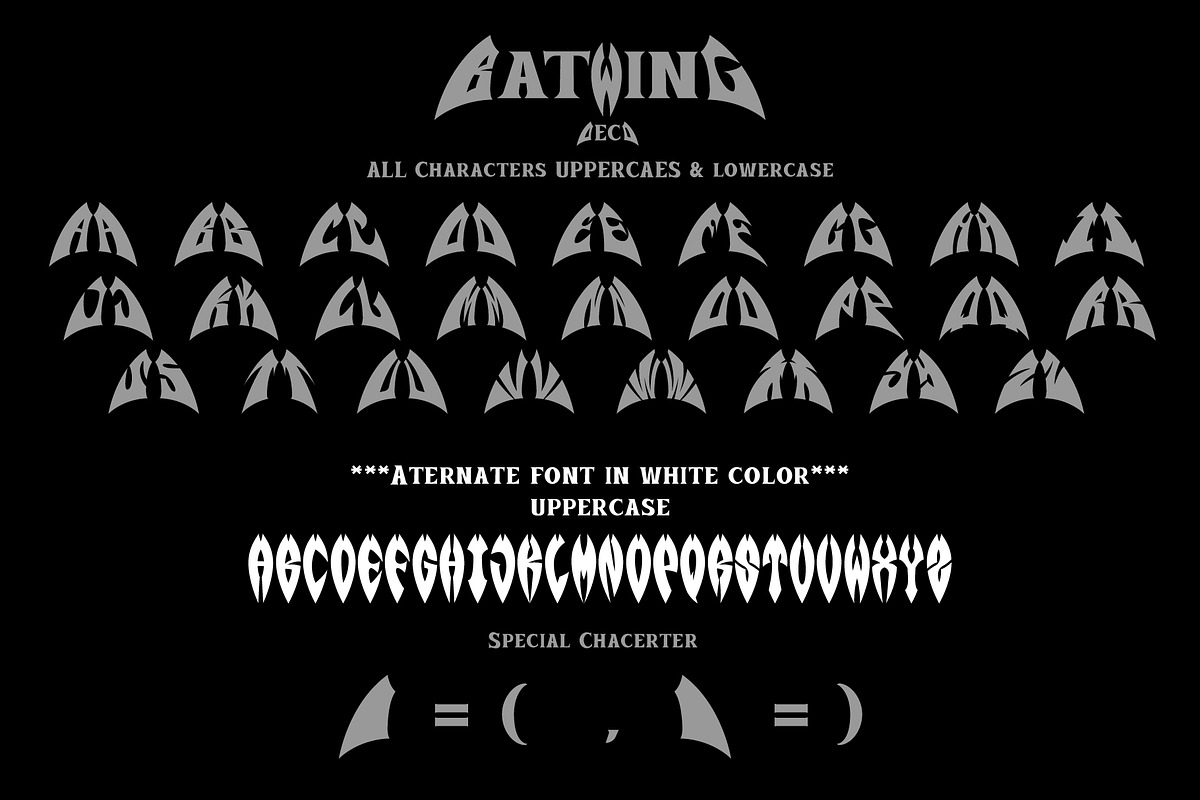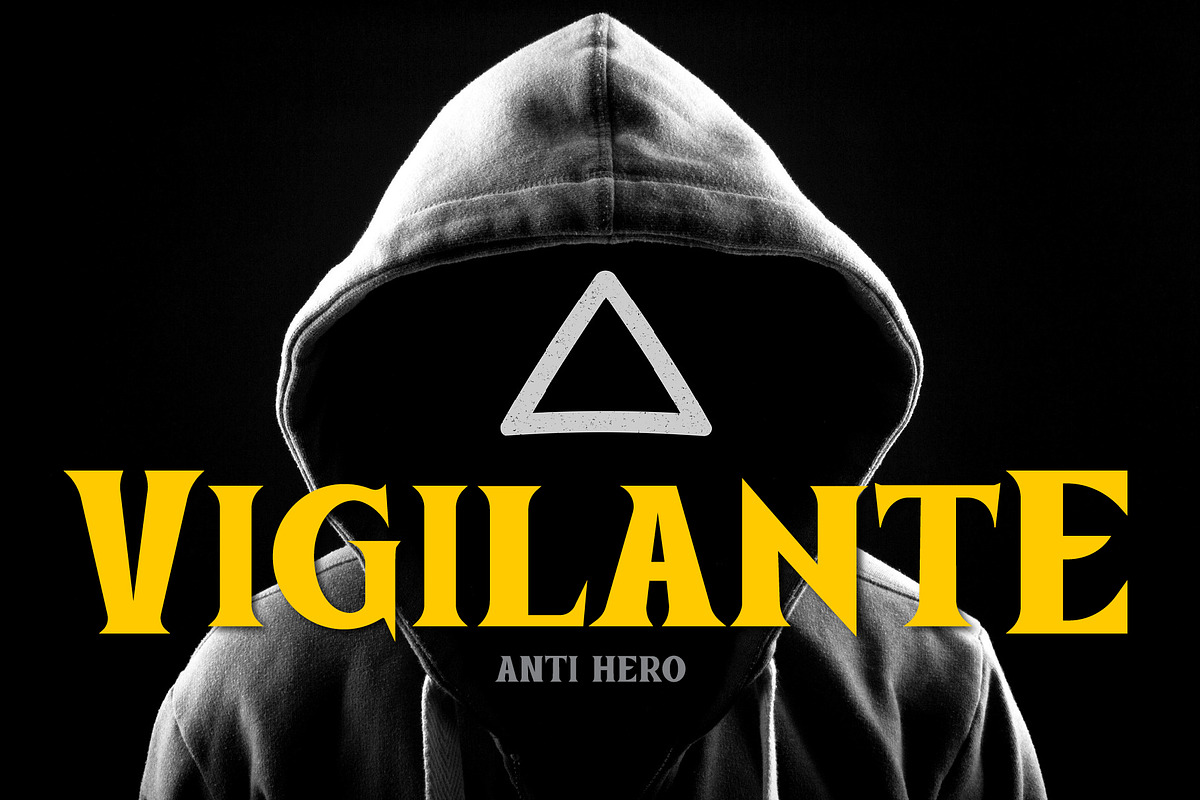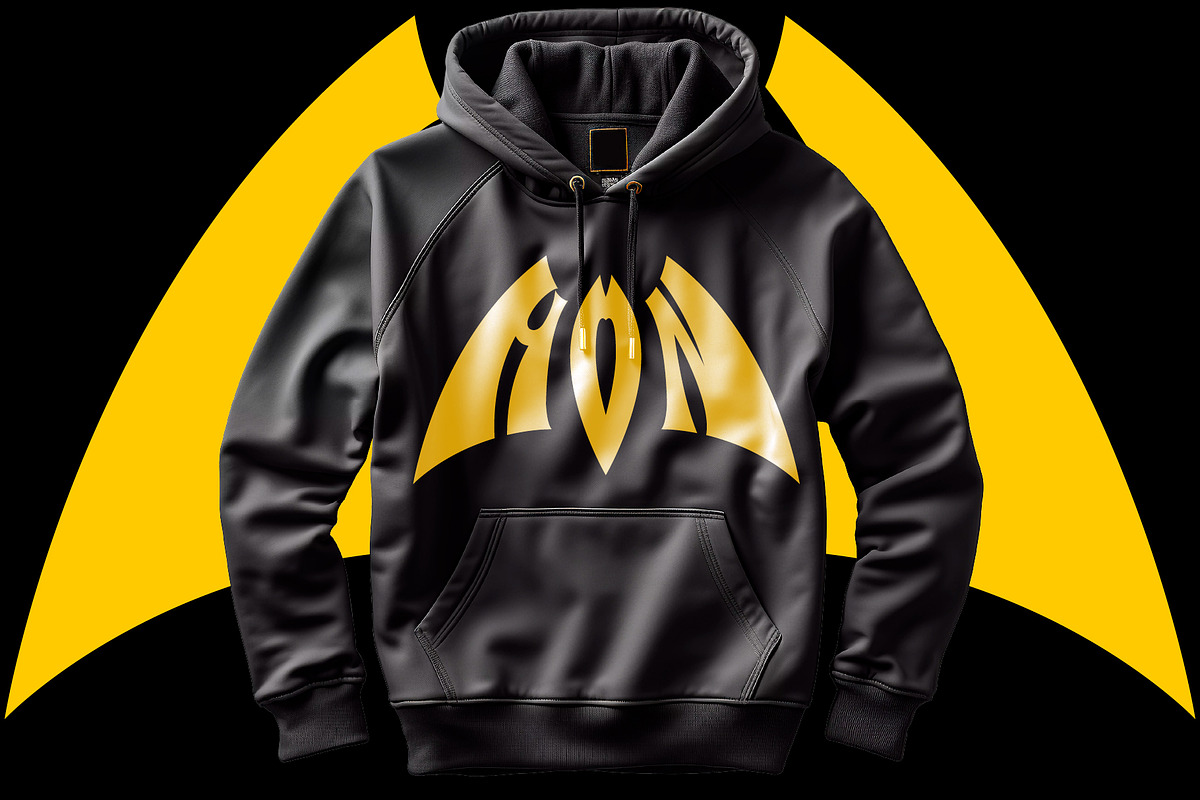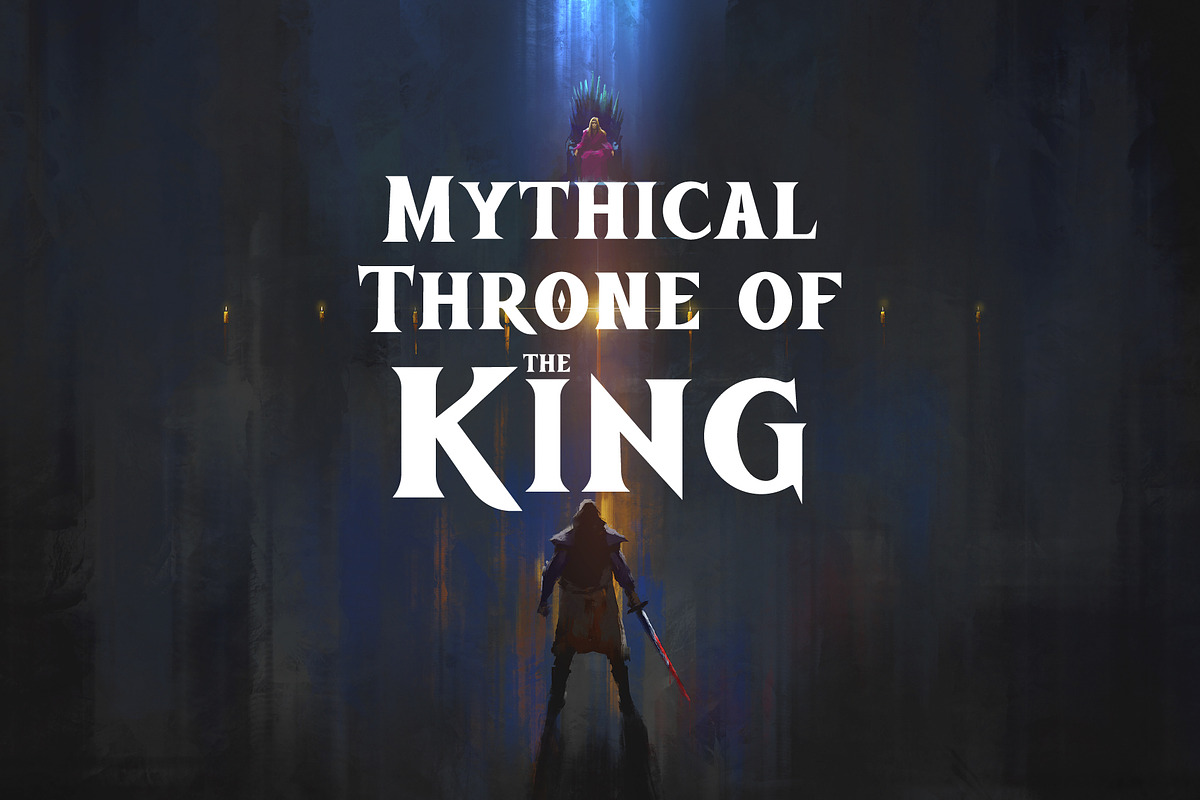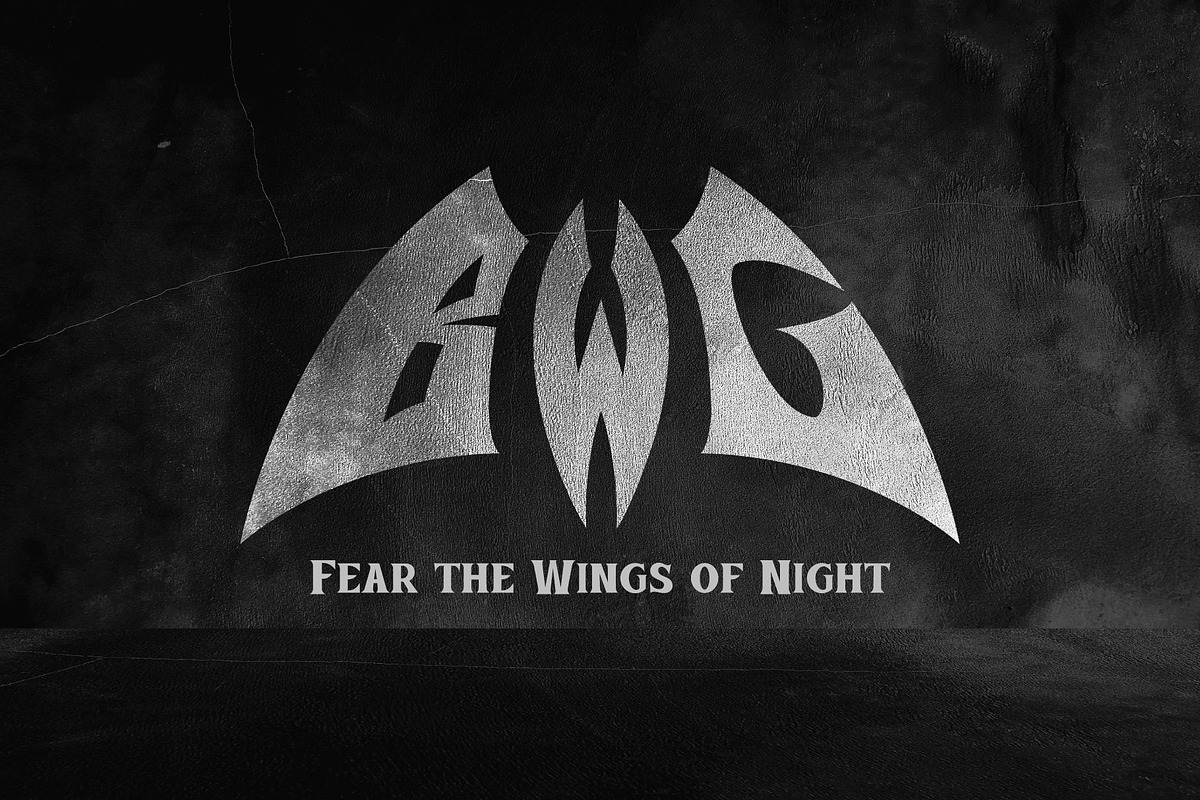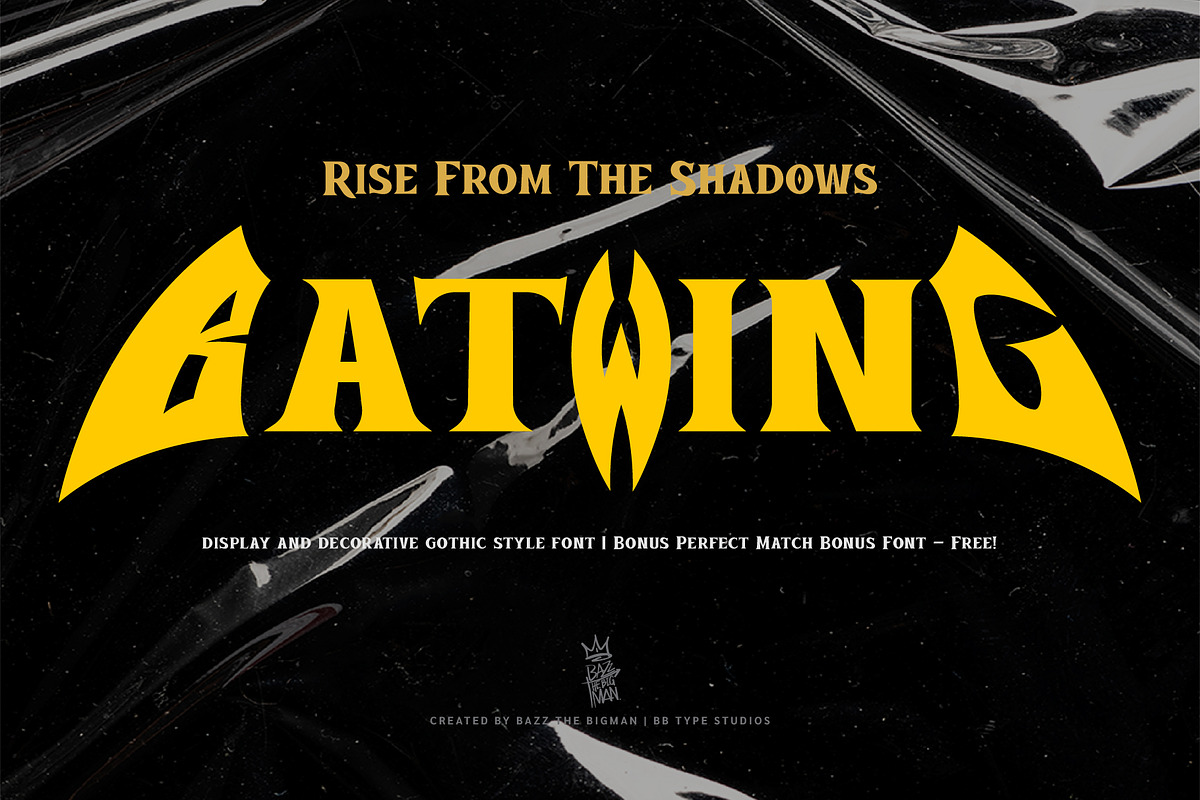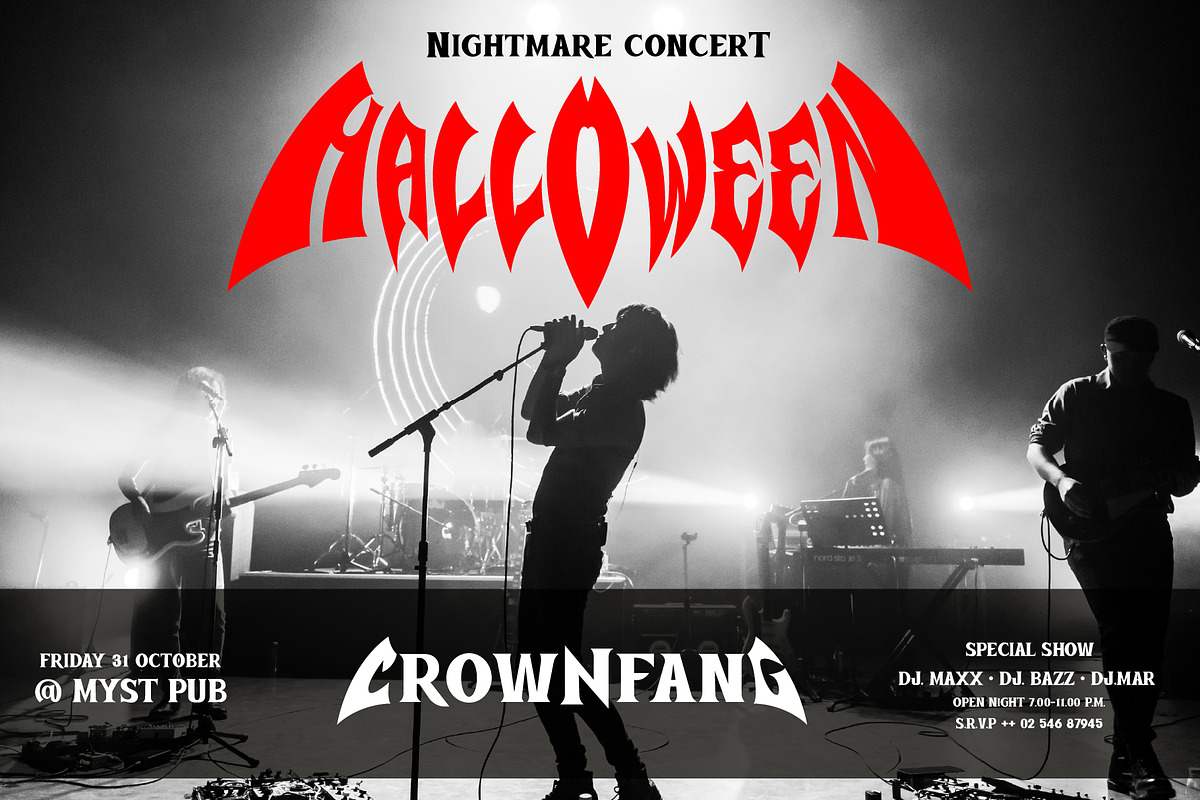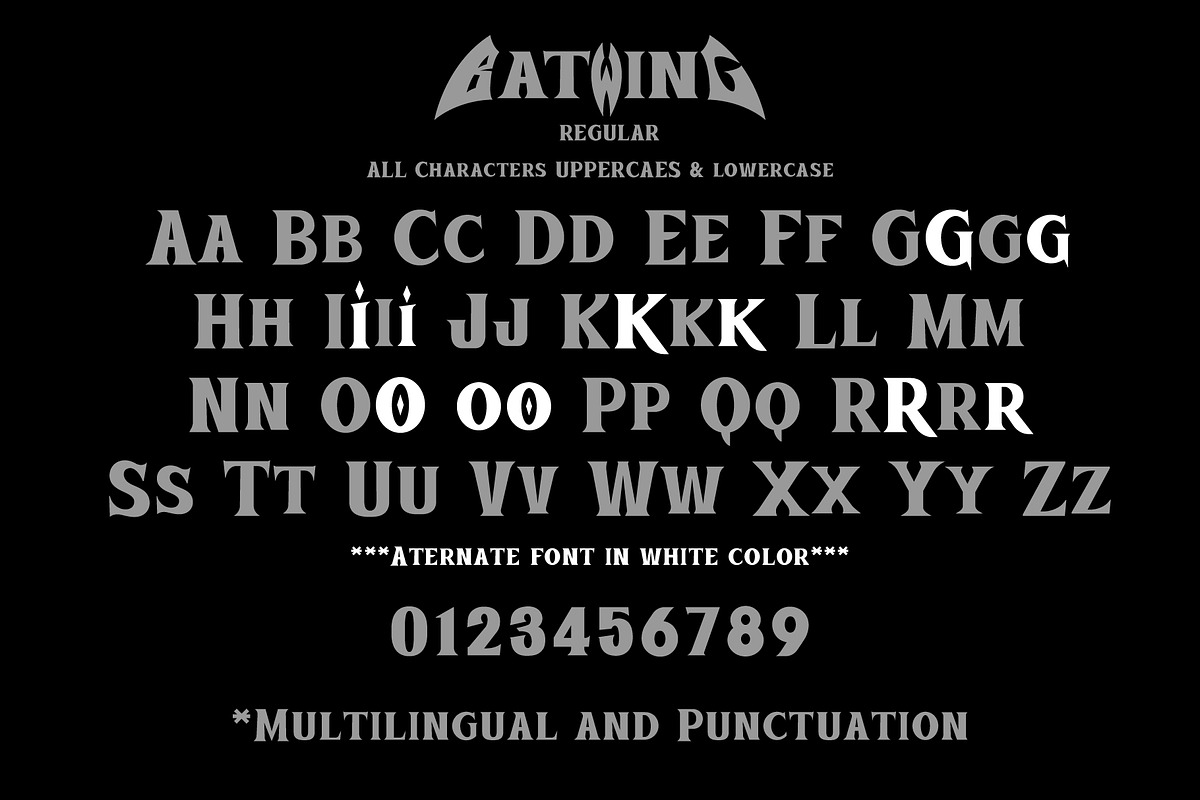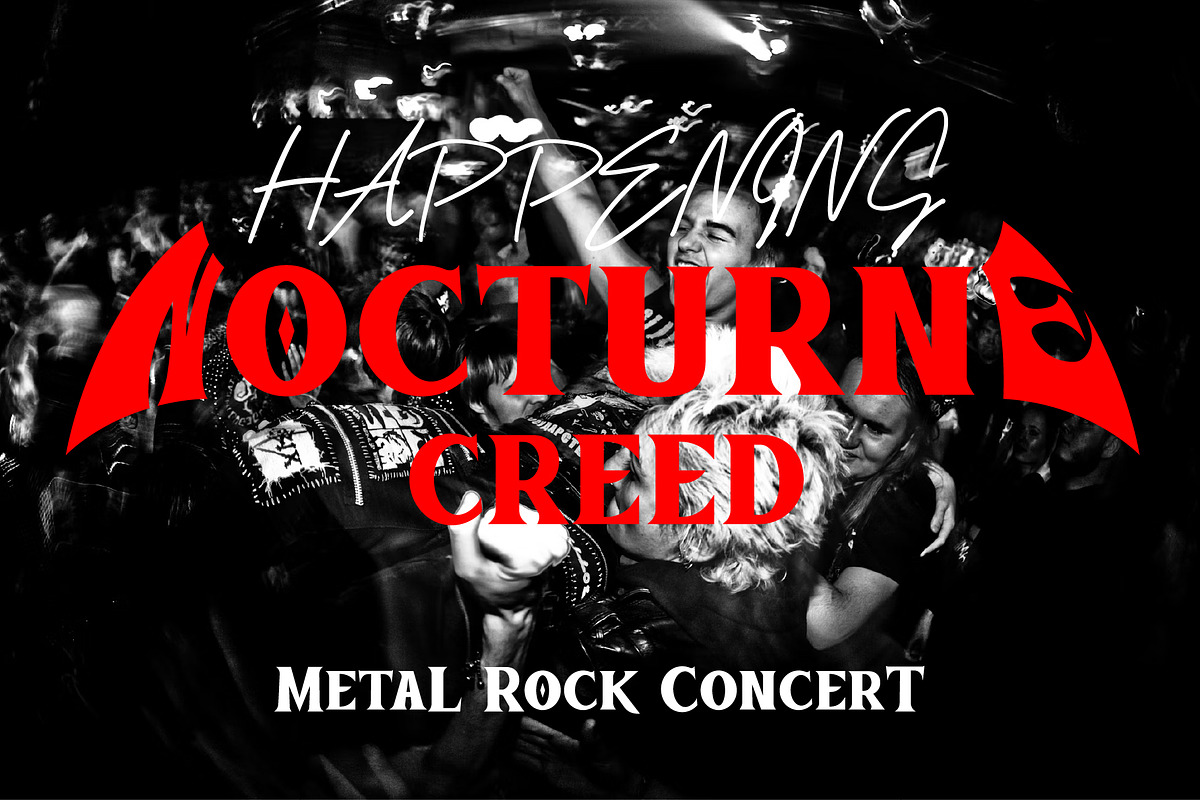
Bat Wing
Batwing is a bold and fierce display typeface inspired by gothic legends, nocturnal wings, and the vigilante spirit. With razor-sharp edges, exaggerated serifs, and winged monogram forms, this font commands attention on logos, band identities, horror themes, and rebellious designs.
Crafted for impact, Batwing is perfect for heavy metal posters, Halloween branding, gaming covers, or anything that needs a dark and daring presence. Whether it’s rising from the shadows or soaring through your next bold design, Batwing delivers style with a sharp edge.
Free companion Fang moon font included – designed to perfectly pair with Batwing